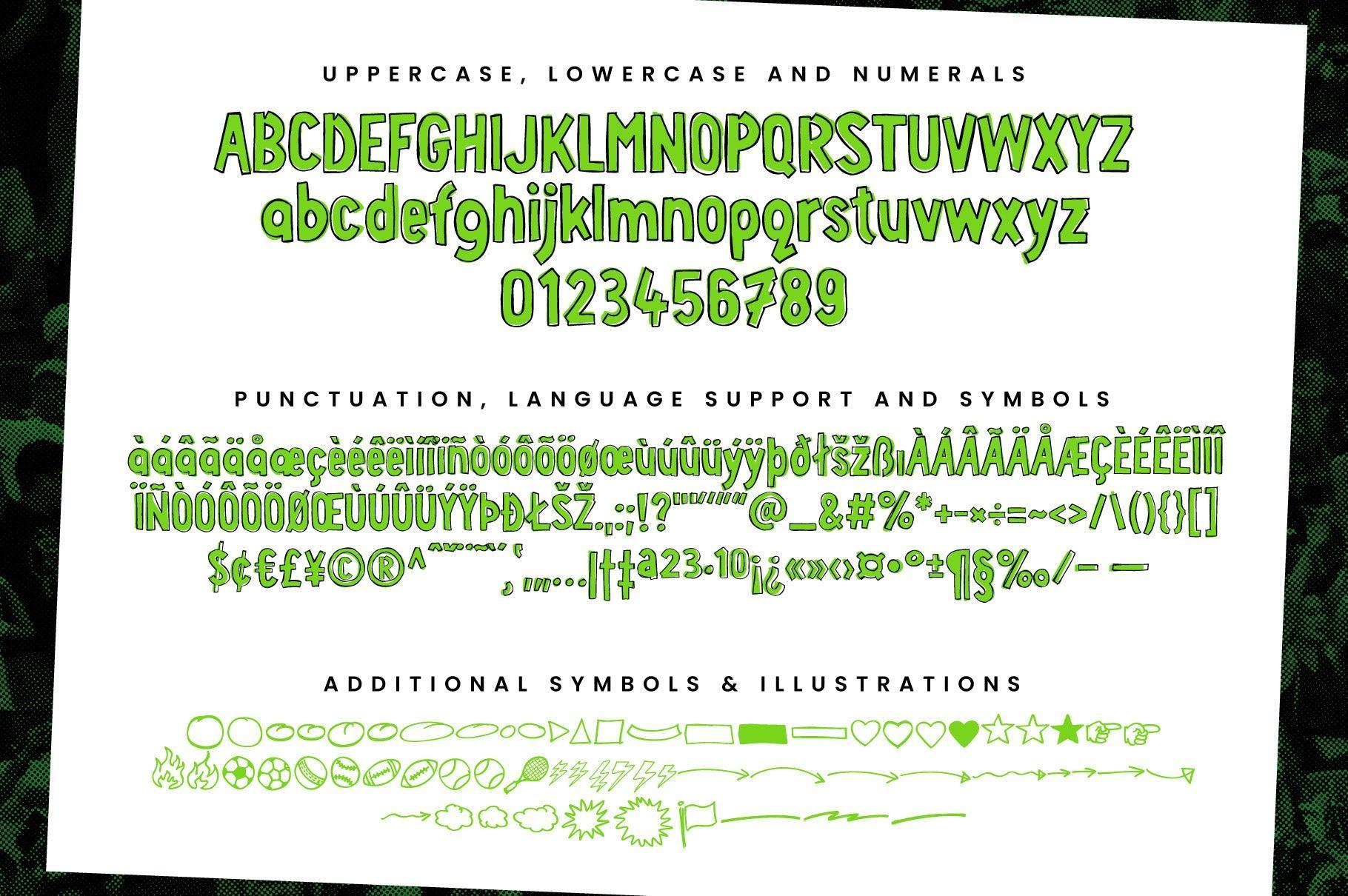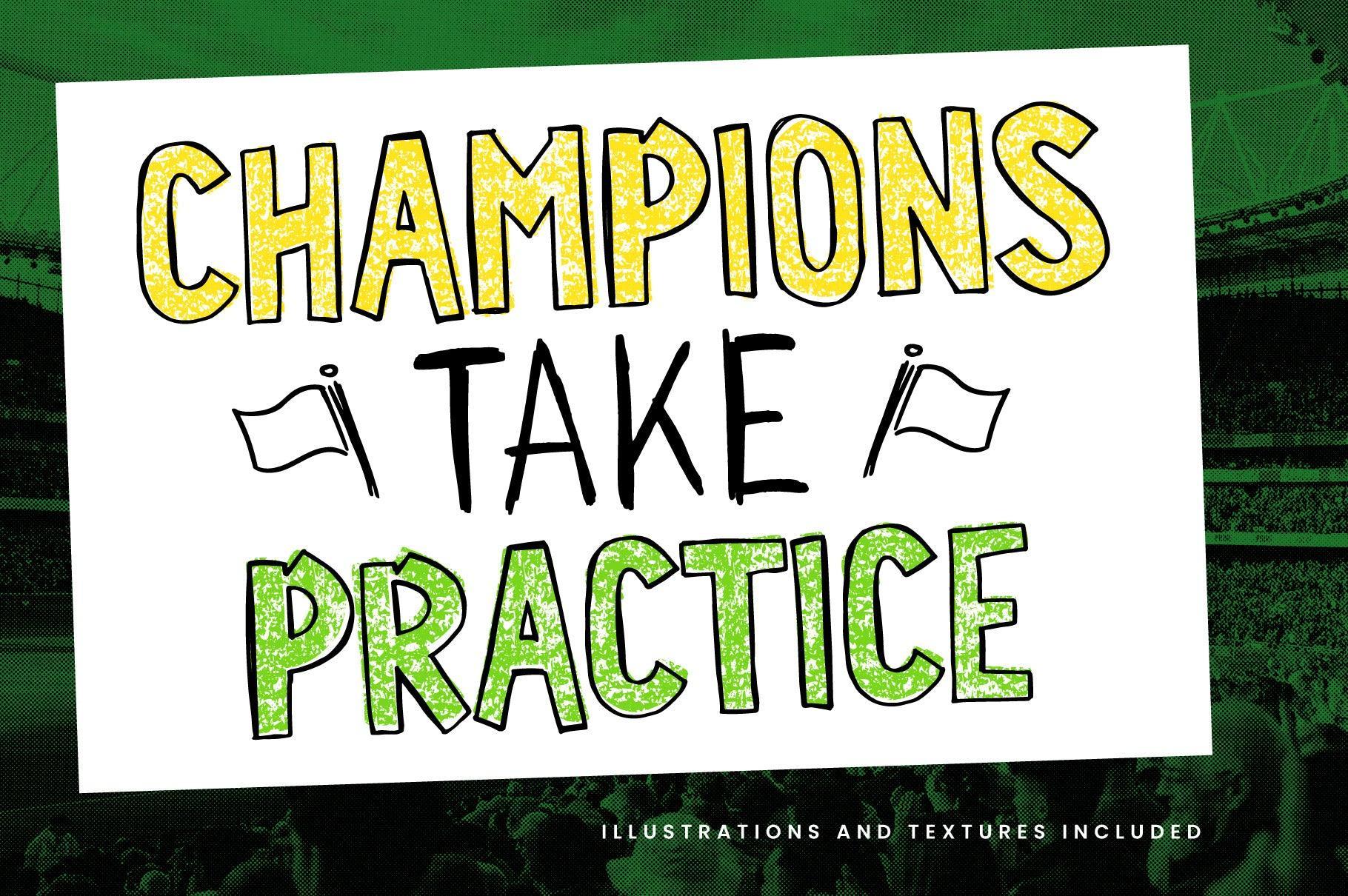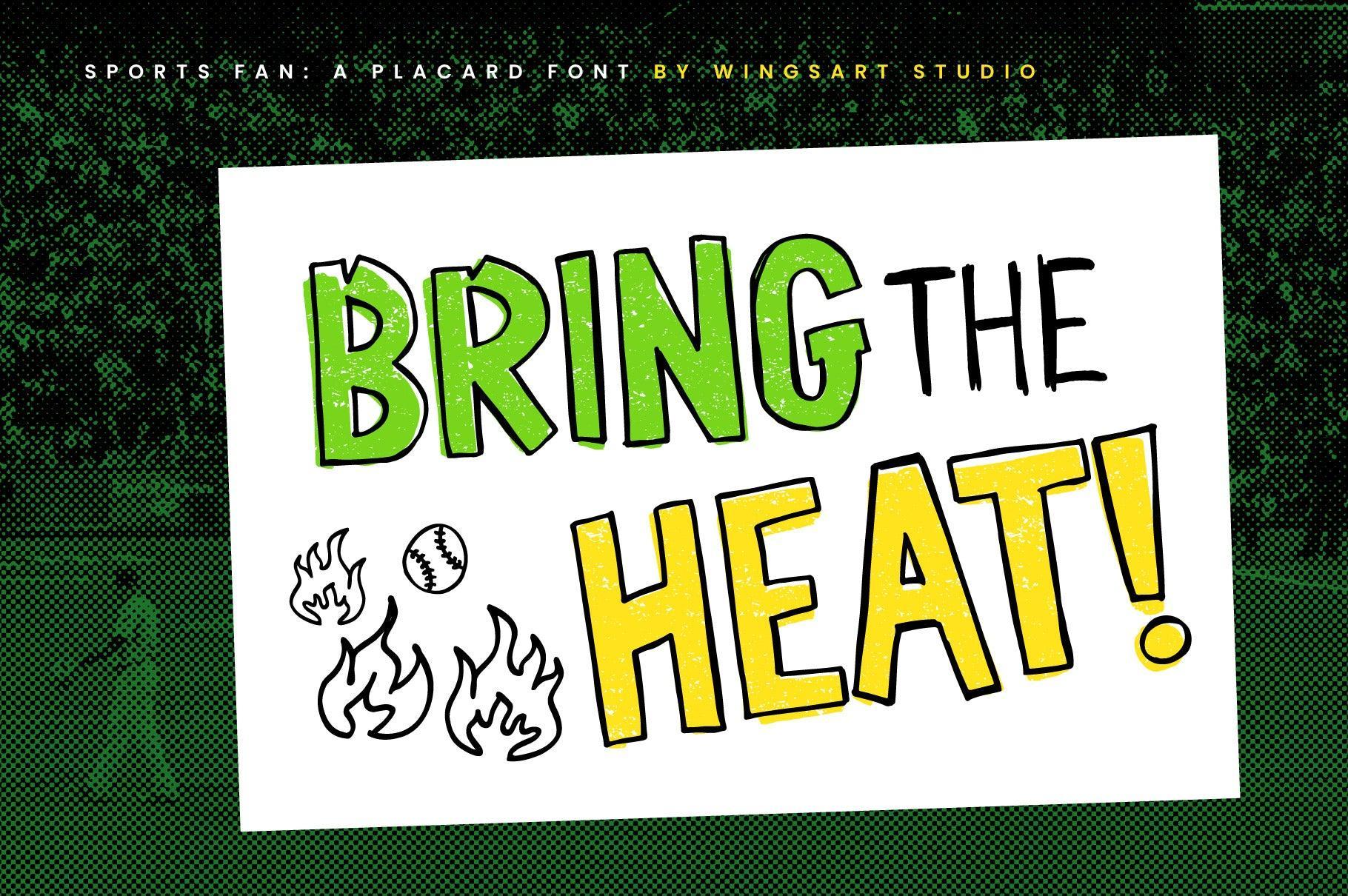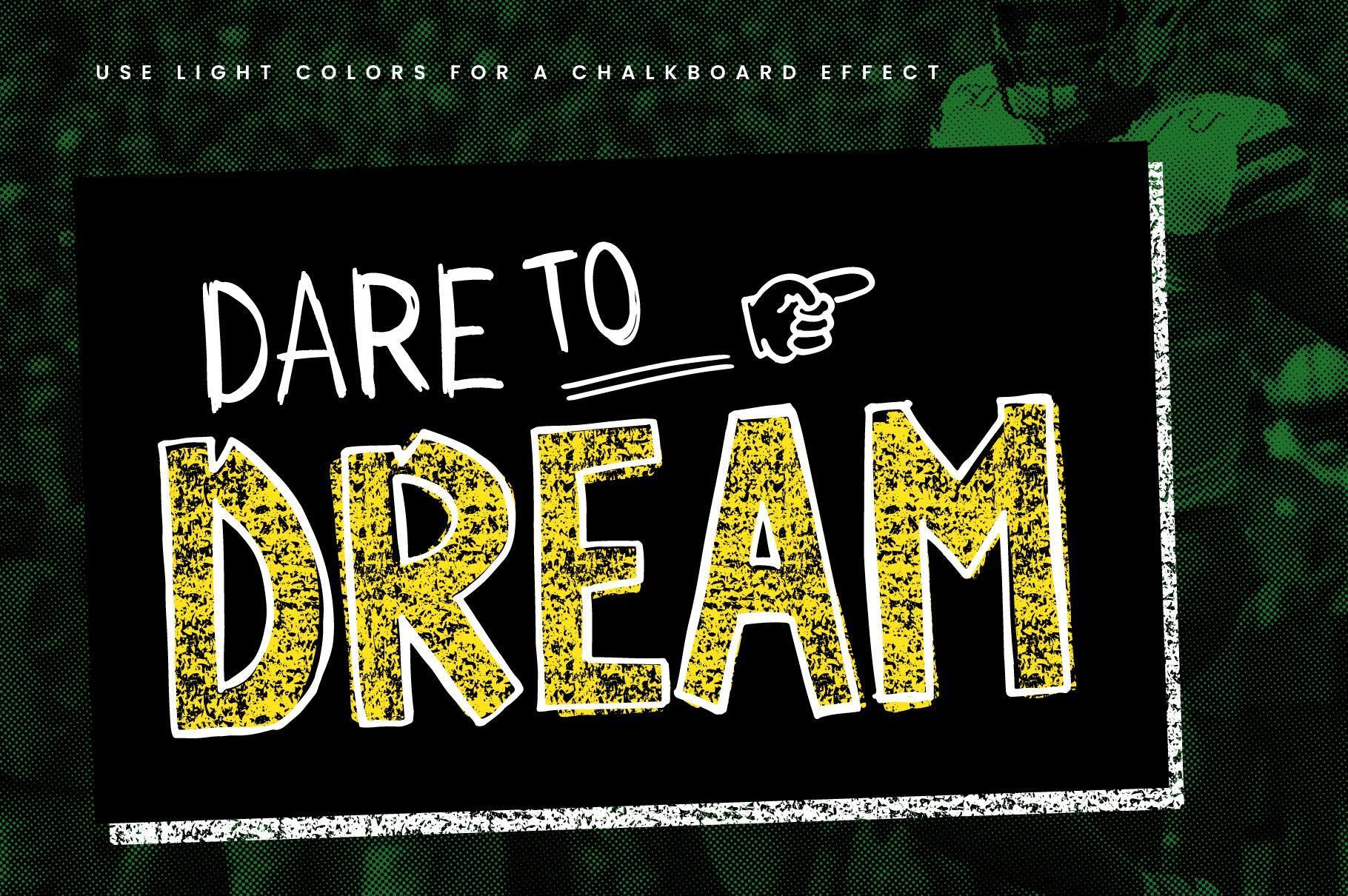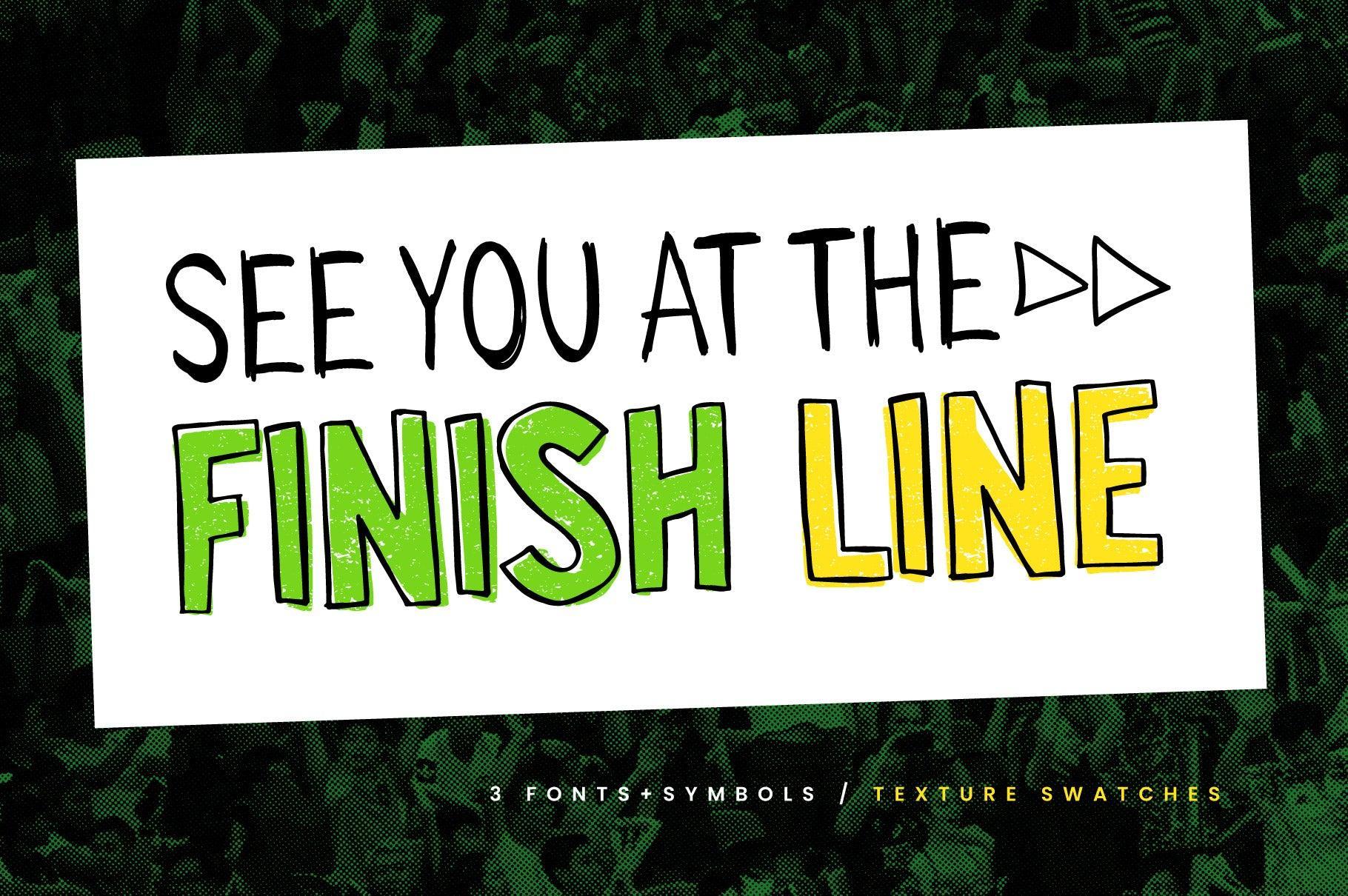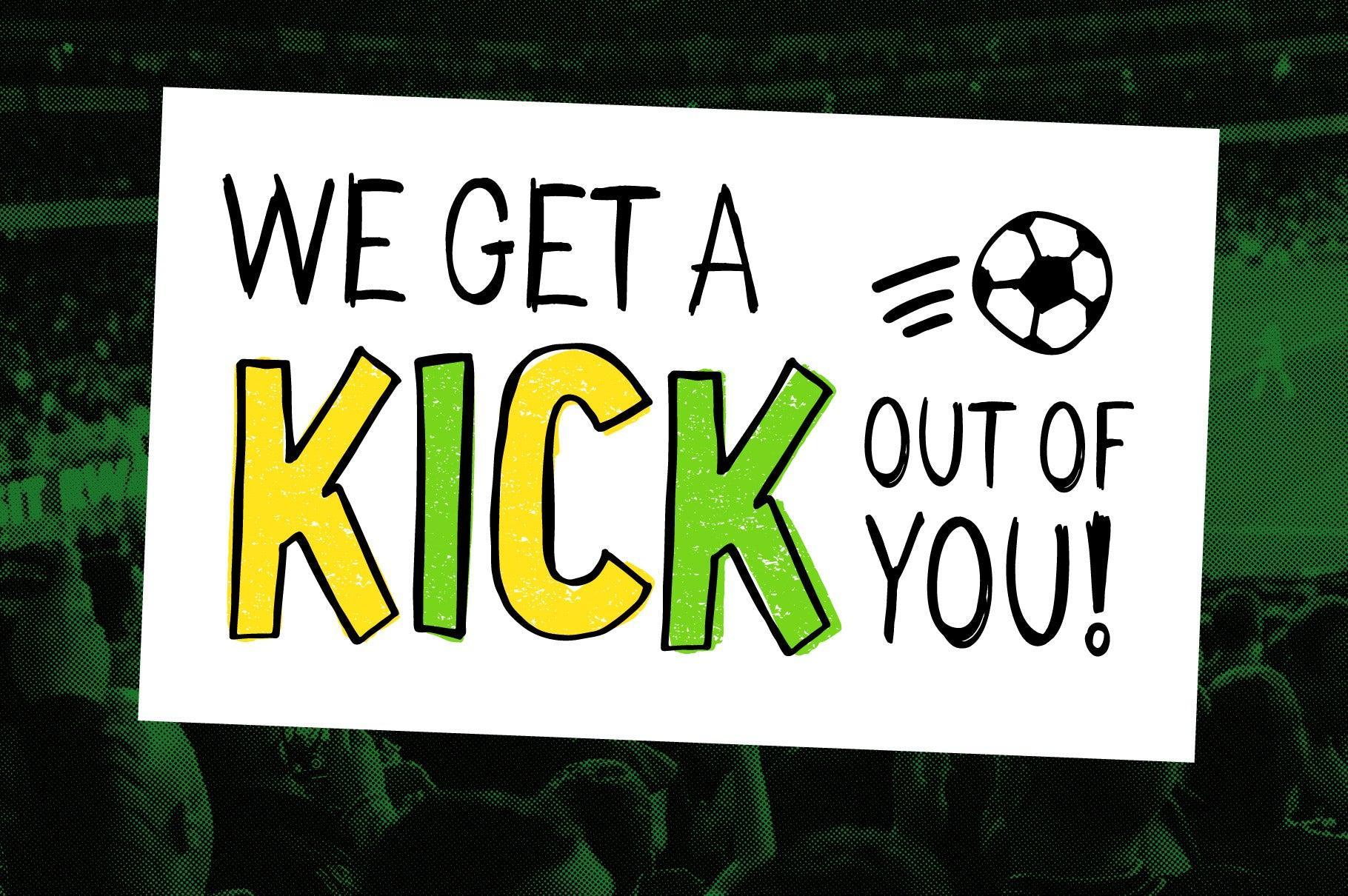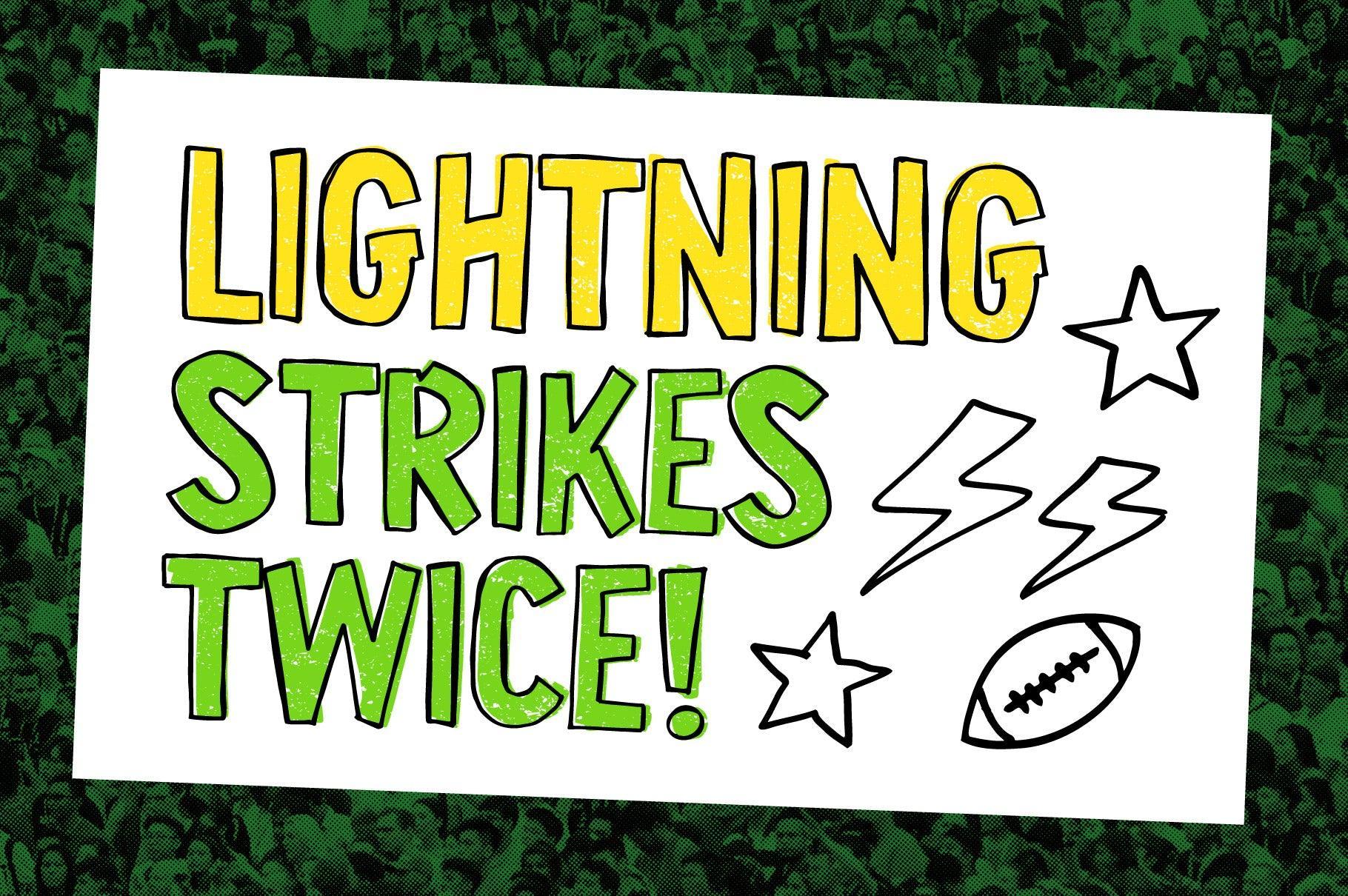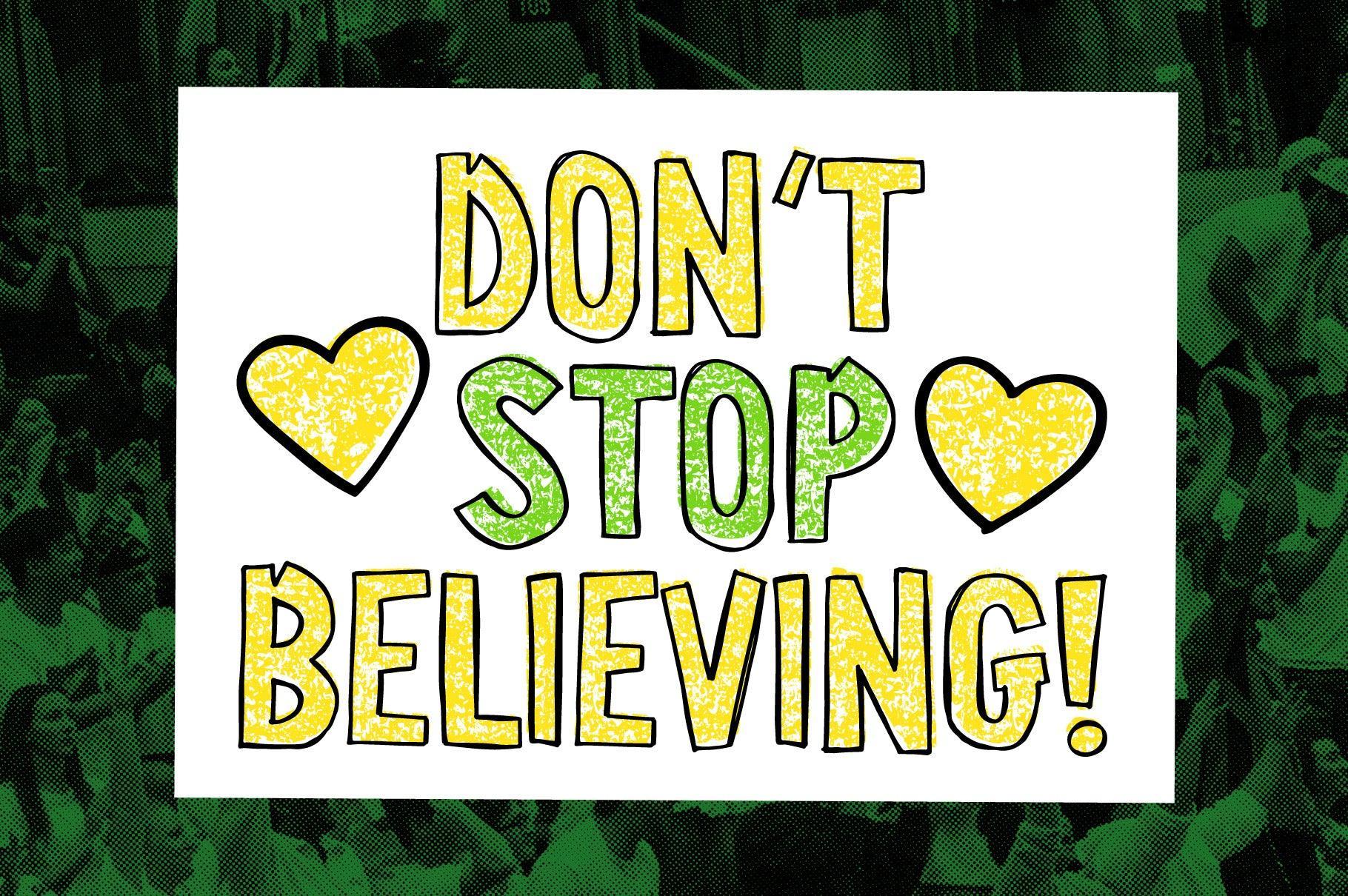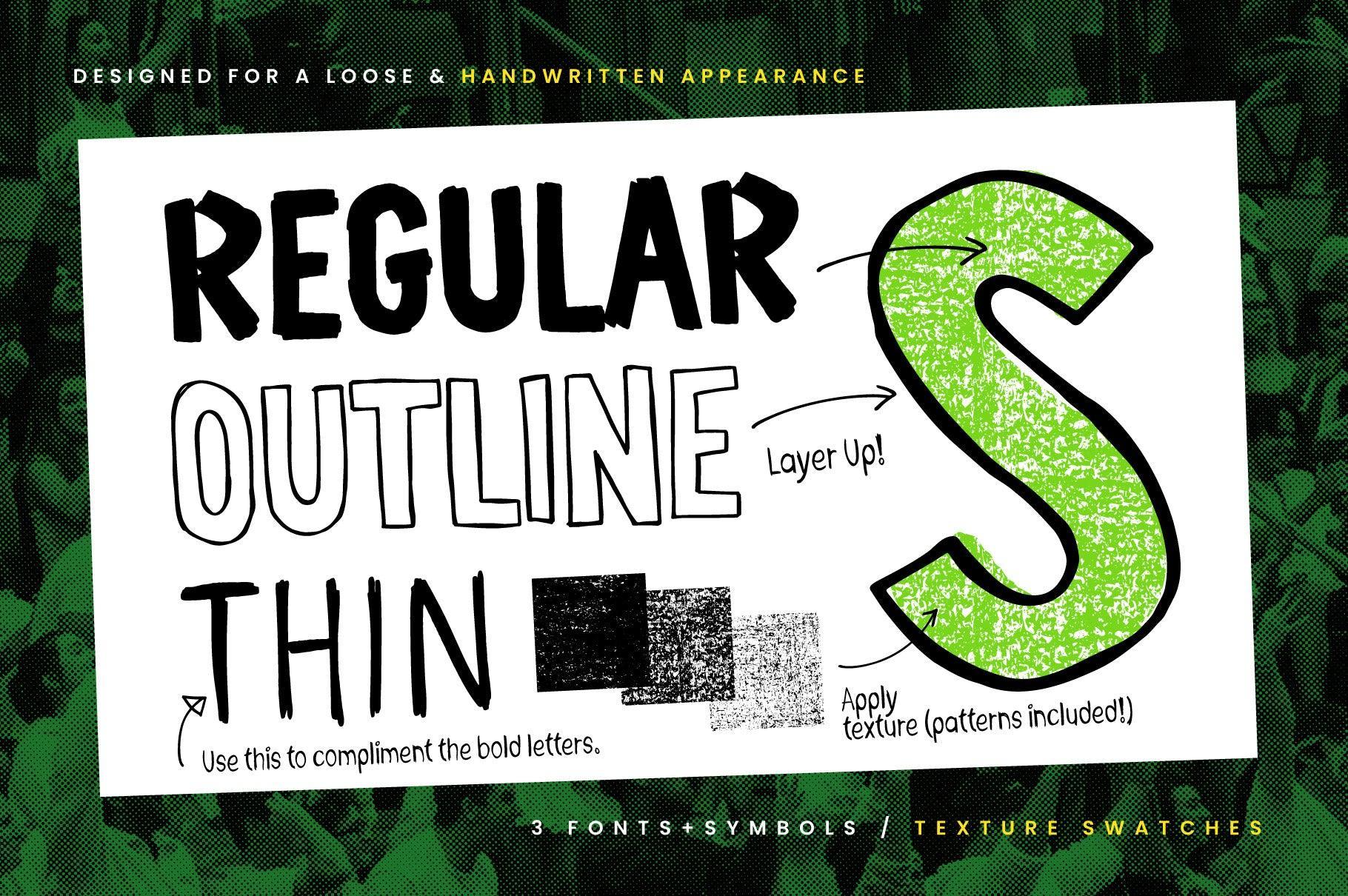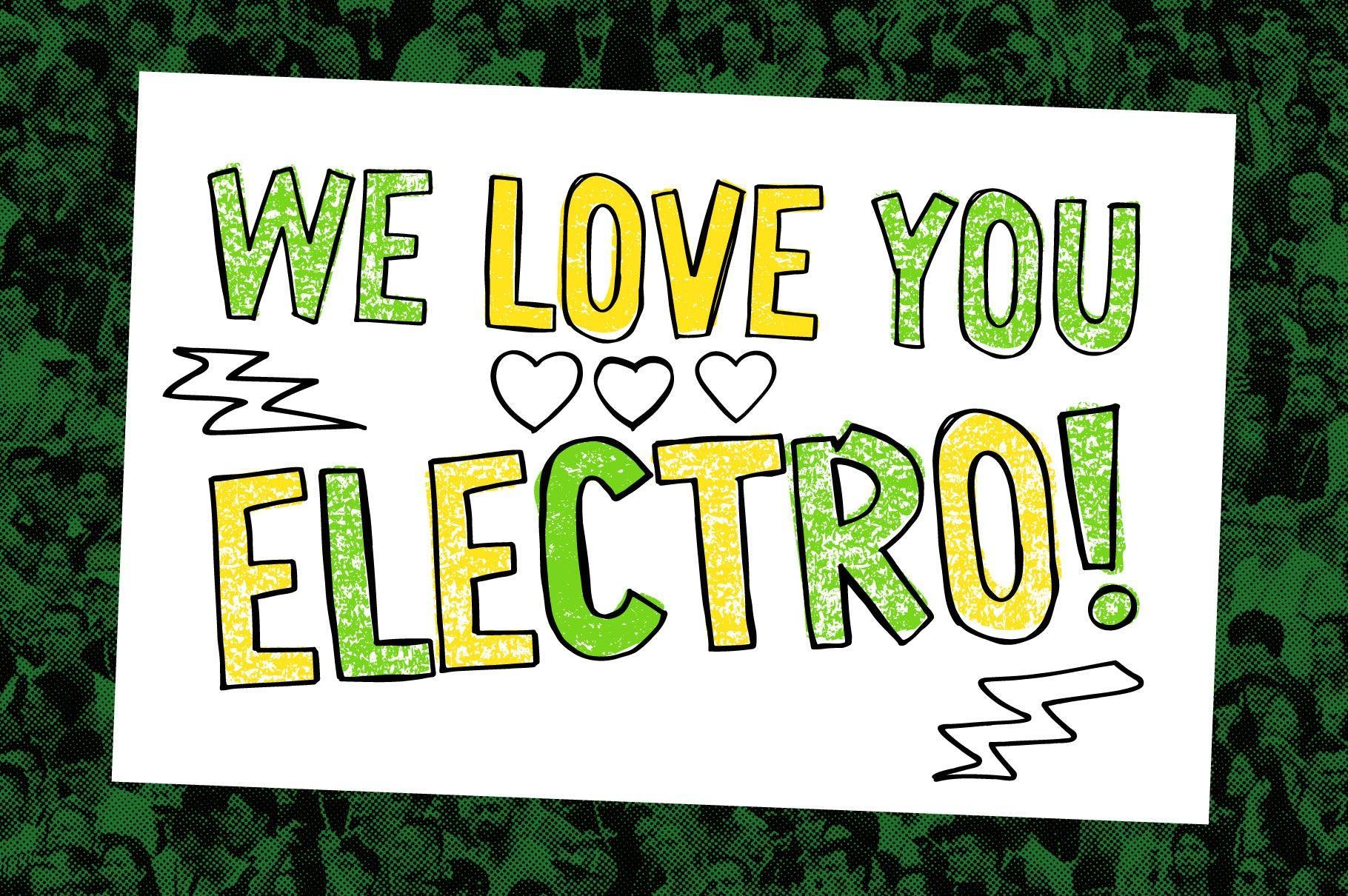
Sports Fan - A Handwritten Placard Font
Sports Fan is a handwritten placard font designed to mimic the look of stadium signs and fan messages. The font family includes three styles—Regular, Outline, and Thin—along with a complete set of uppercase and lowercase characters, numerals, punctuation, and symbols. It also features underlines, sports-themed illustrations, and crayon textures in three thicknesses, all provided as repeatable pattern swatches compatible with Adobe Photoshop and Illustrator.
Ideal for sports-themed graphic design and event branding. Perfect for posters, team merchandise, and social media graphics, ensuring a playful and engaging visual appeal that captures the excitement of game day.